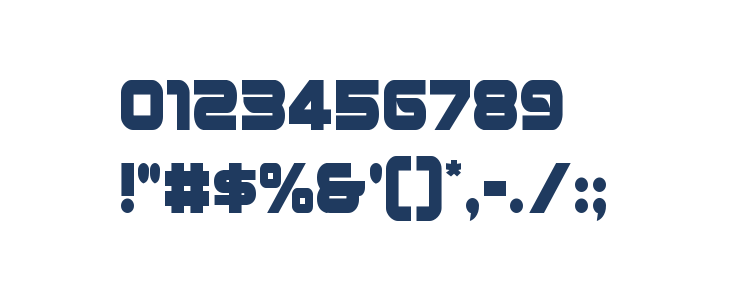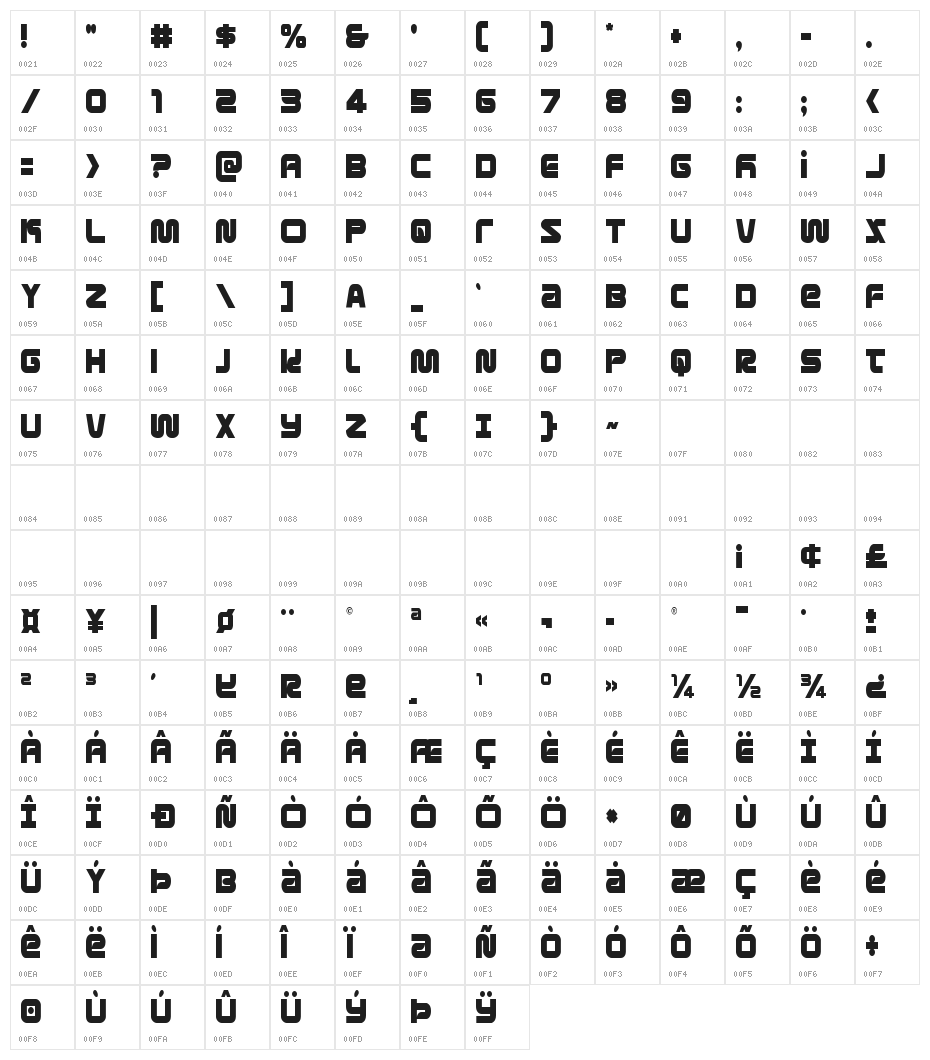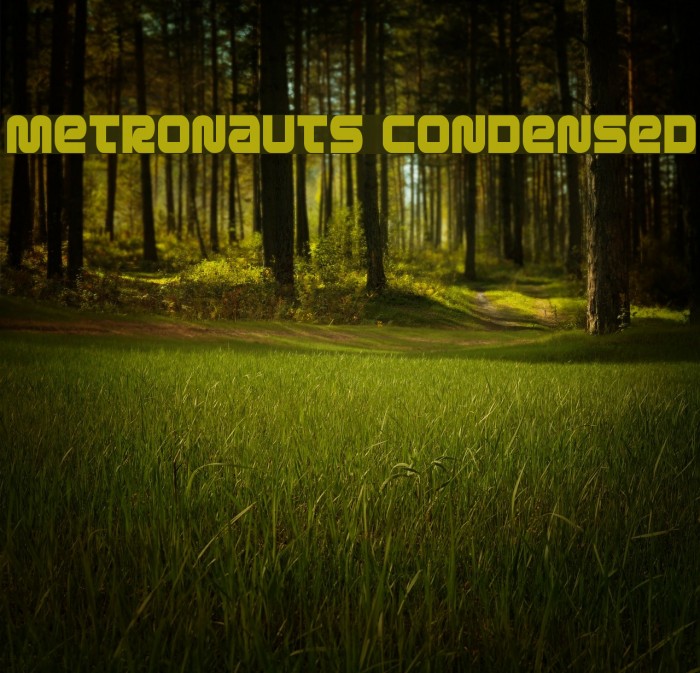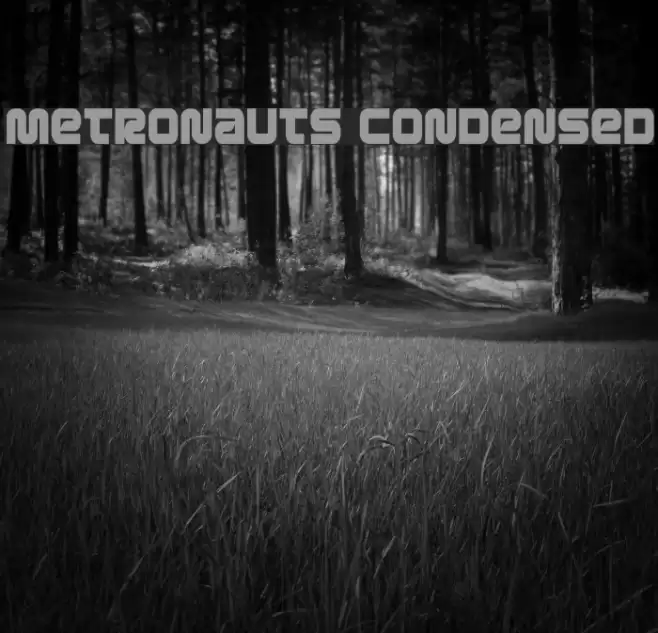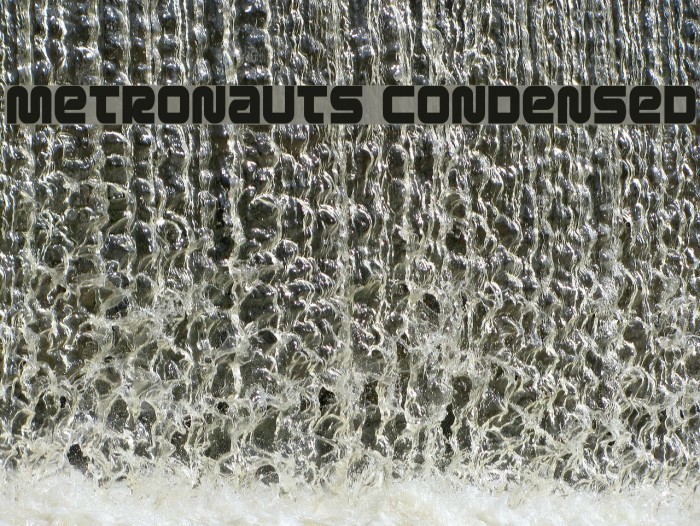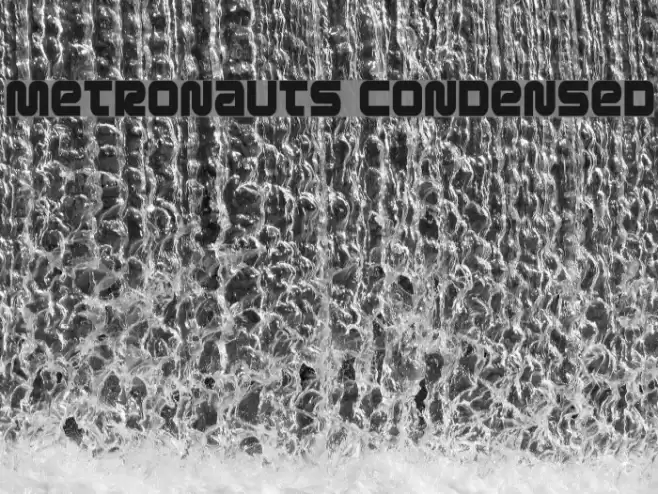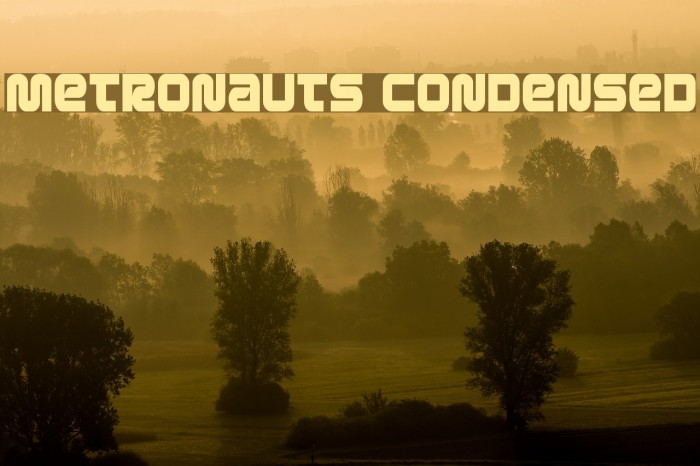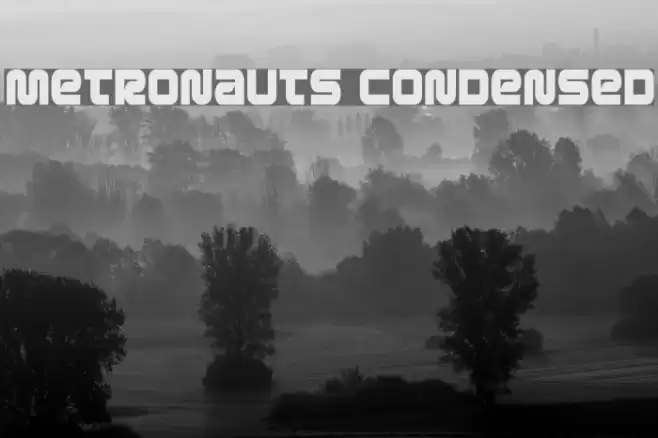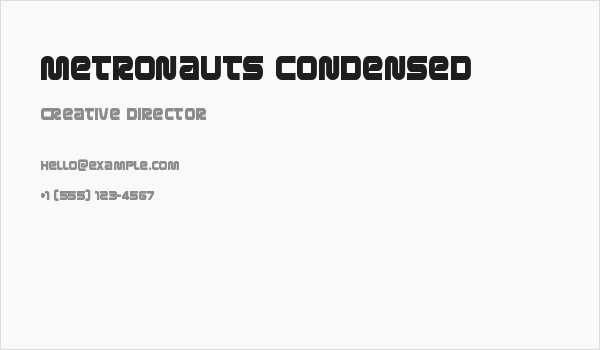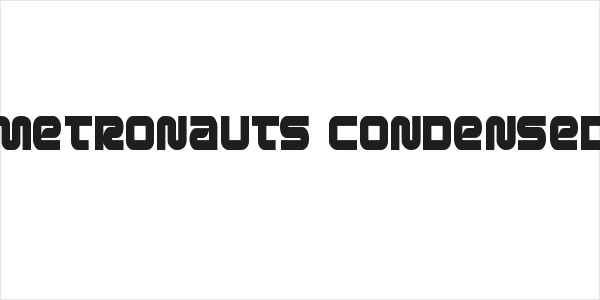
Metronauts Condensed Font
Metronauts Condensed Description
This font features a bold and futuristic design with a condensed structure. The characters are geometric and blocky, giving a strong and impactful appearance. The uppercase and lowercase letters maintain a consistent style, with rounded edges and a uniform thickness that enhances readability. The numerals and special characters follow the same design principles, ensuring a cohesive look across all glyphs. This font is ideal for projects that require a modern and edgy aesthetic, such as technology branding or sci-fi themed designs.
Proposed ProjectsIdeal for technology branding, sci-fi themed designs, and modern advertising.